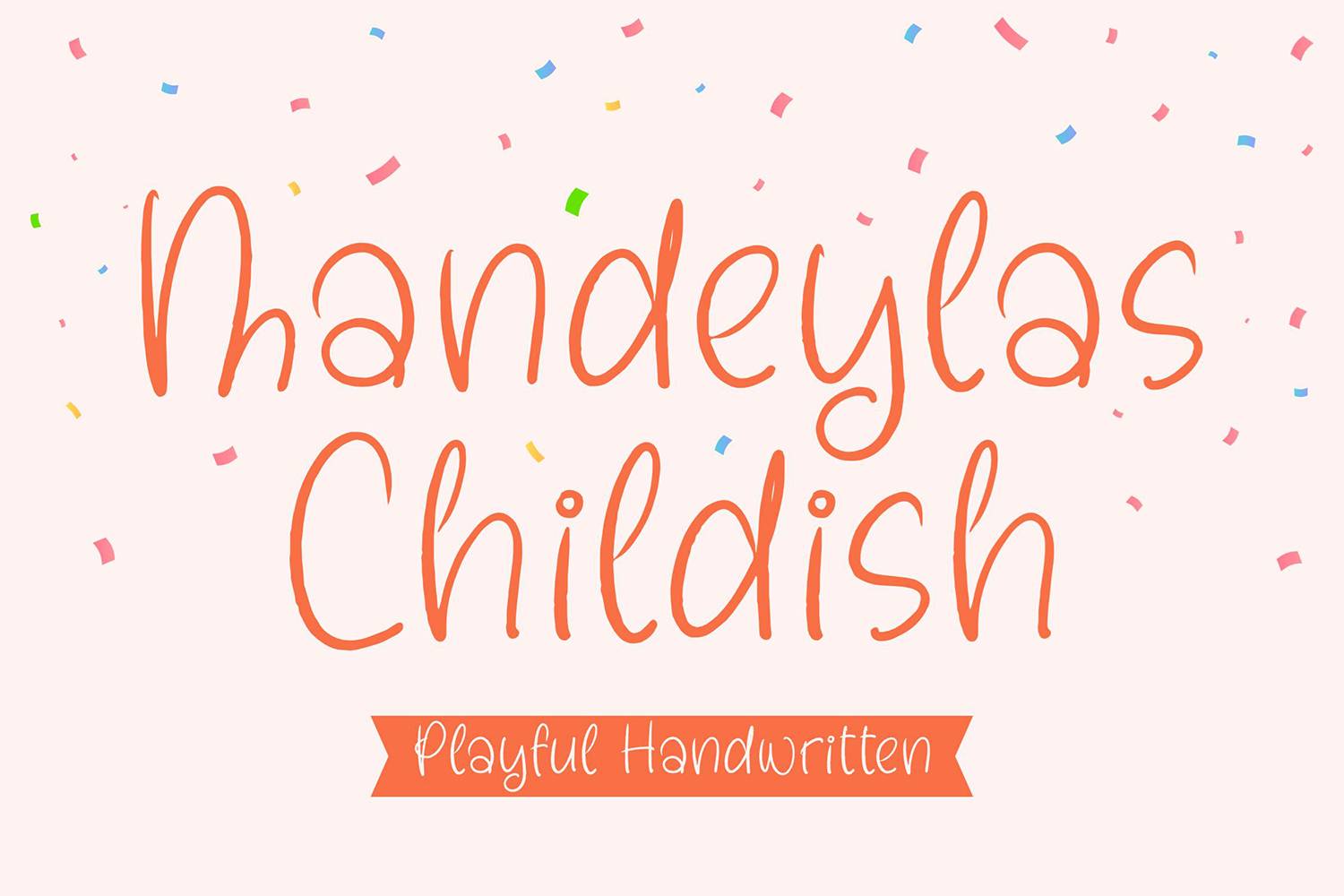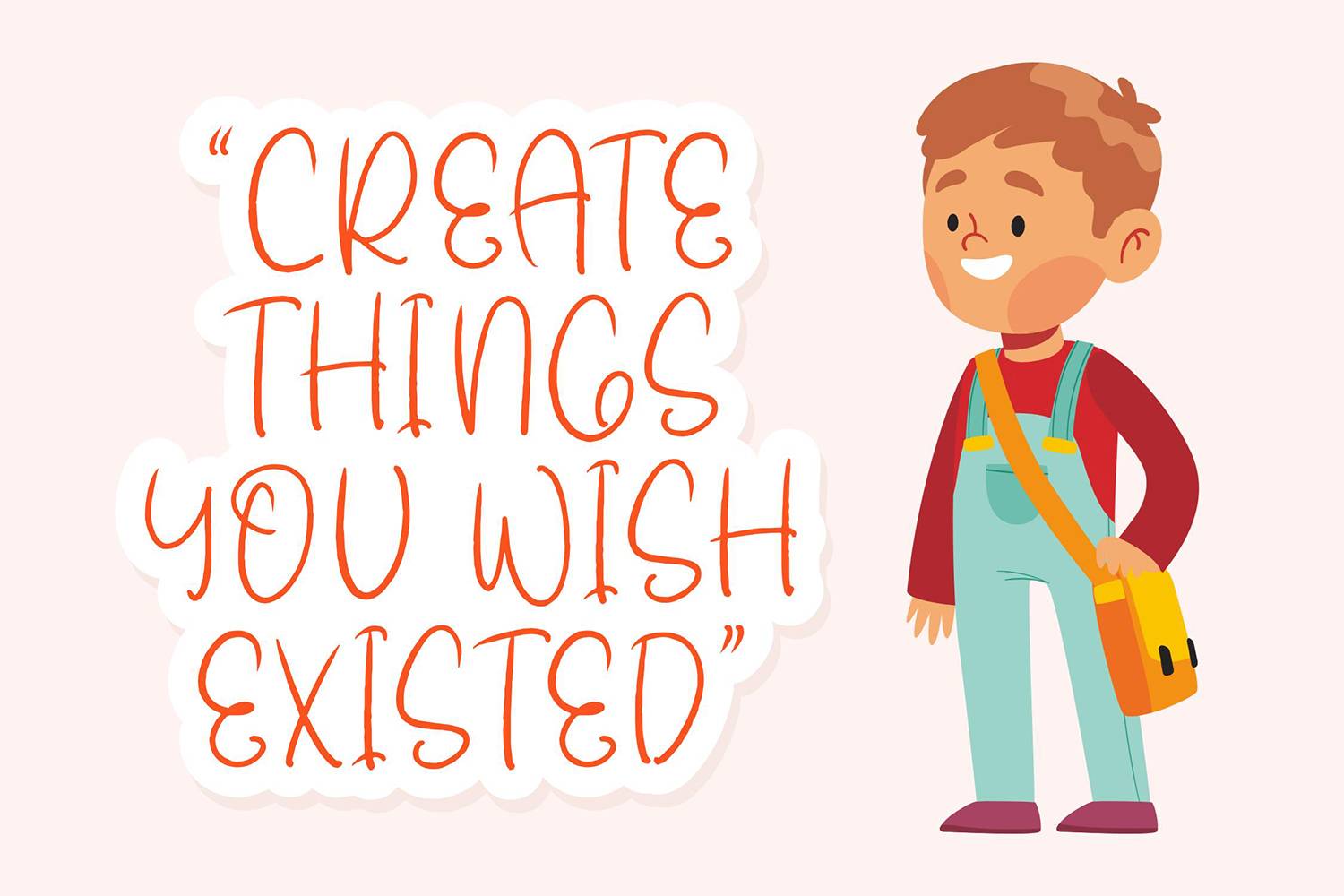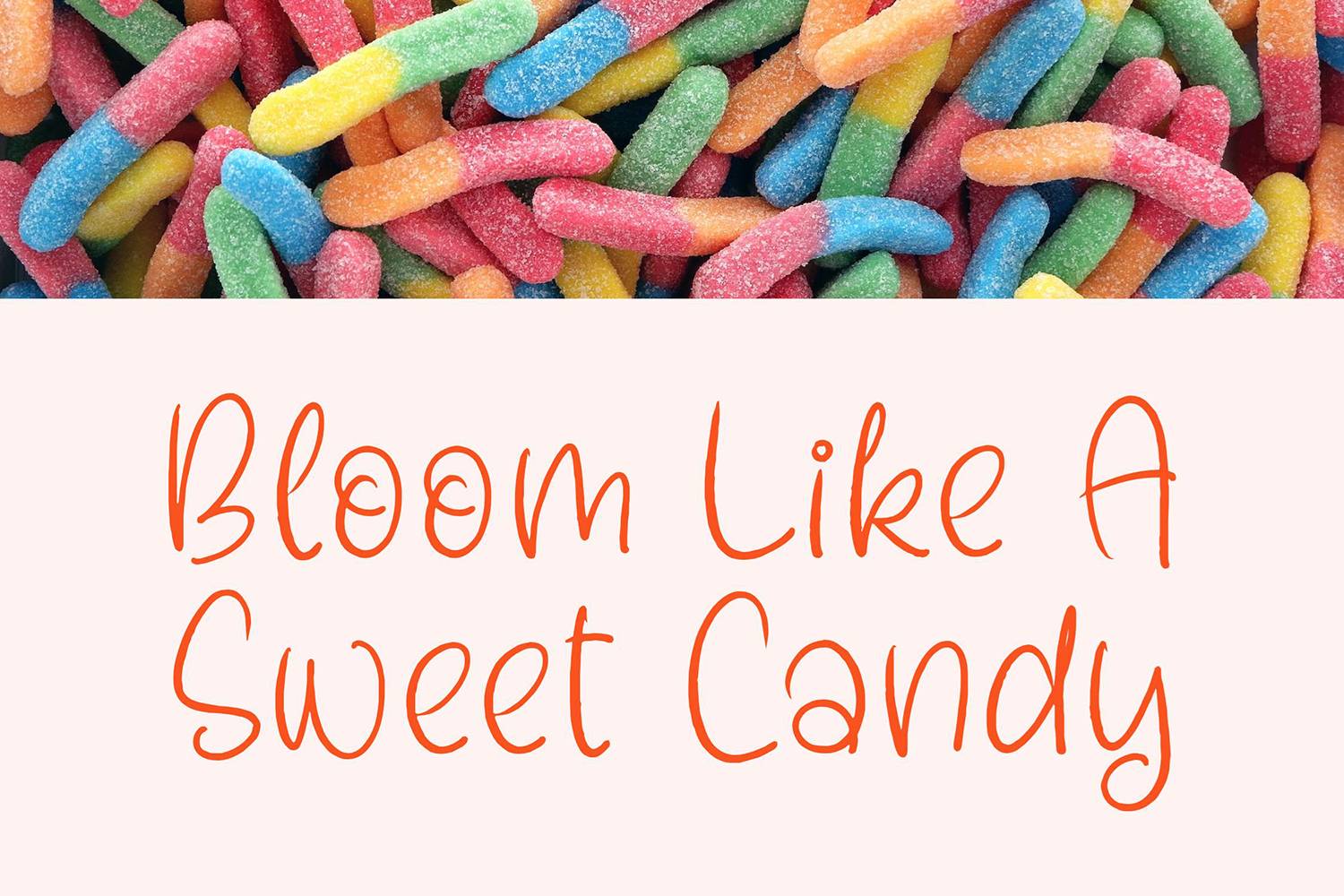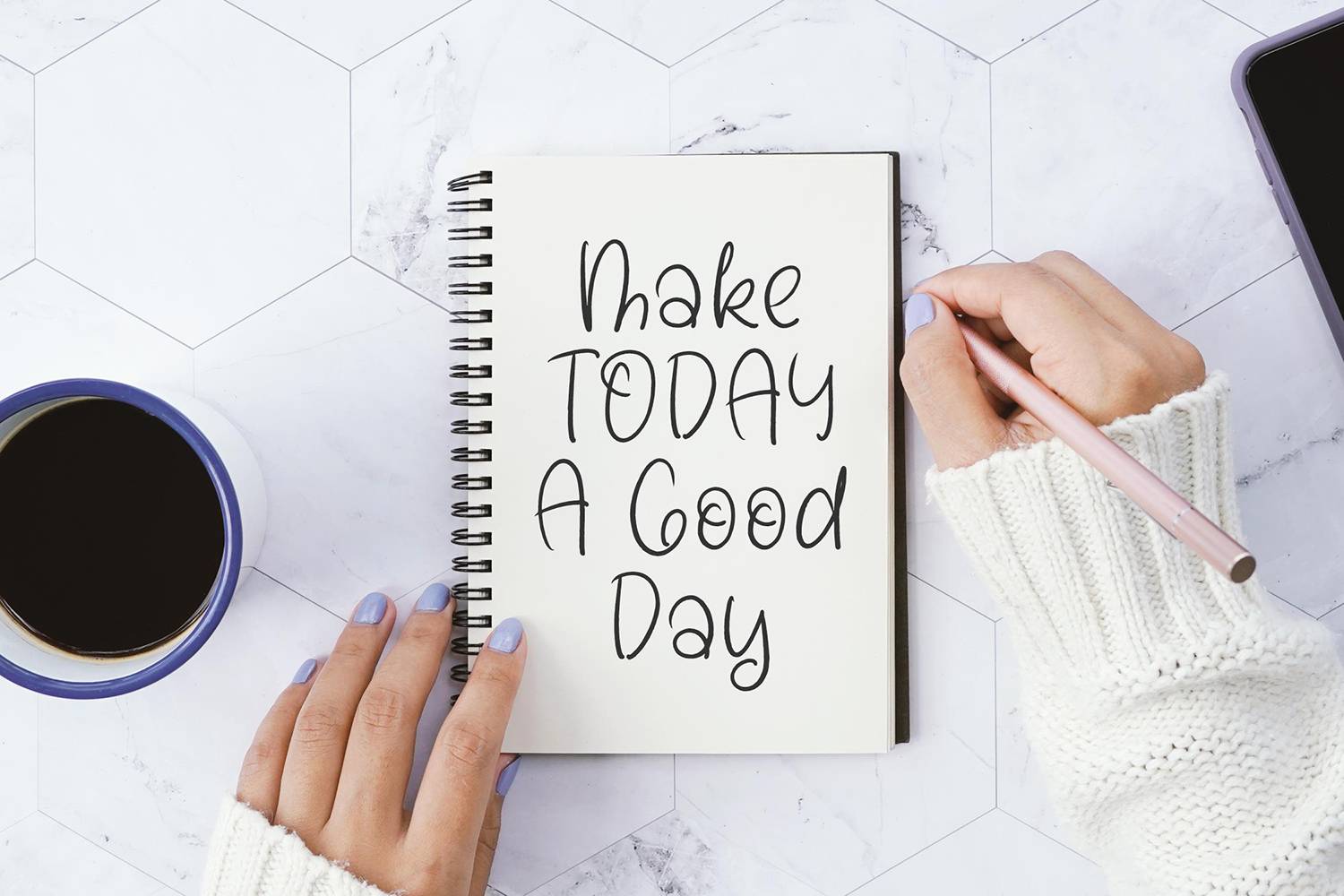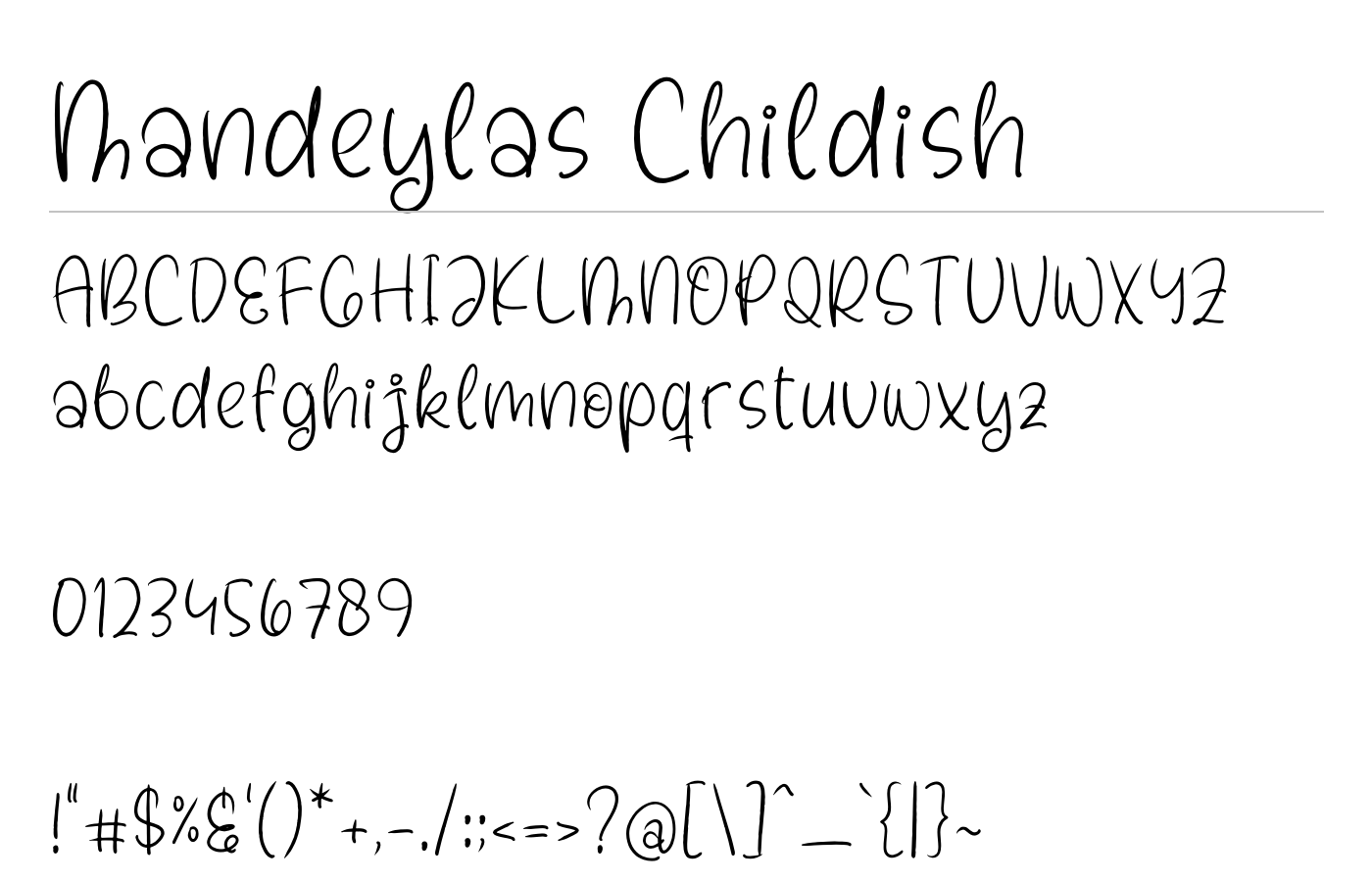
Mandeylas Childish is a playful, hand-drawn sans serif font with a light weight and narrow width that gives it a casual, approachable feel. Its tall, slightly irregular letterforms and whimsical curves make it perfect for children's books, informal branding, and fun editorial projects that seek a friendly and creative vibe. This font works best in headlines and short text where a youthful, handmade touch is desired.
Mandeylas Childish Font
About Mandeylas Childish Font